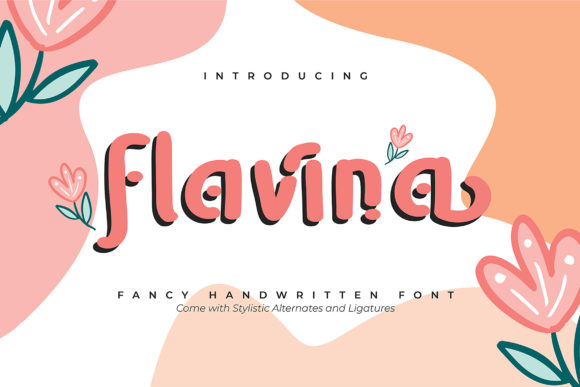
Introducing Flavina Font: The Ultimate Retro Display Font for Creative Projects
Are you tired of using the same old fonts for your creative projects? Look no further than Flavina Font, a fun and retro display font that’s perfect for a variety of applications. Whether you’re a crafter, digital designer, presenter, or greeting card maker, Flavina Font is the ideal choice for adding a touch of personality and whimsy to your work.
What is Flavina Font?
Flavina Font is a unique and eye-catching display font that’s inspired by the classic typography of the past. Its retro vibe is reminiscent of vintage signs, posters, and advertisements, but with a modern twist that makes it perfect for contemporary design projects. The font features bold lines, curvaceous shapes, and a playful flair that’s sure to grab attention.
Key Features of Flavina Font
- Retro-inspired design: Flavina Font has a distinctive retro look that’s perfect for creating vintage-style designs, but with a modern edge.
- Fun and playful: The font’s curvaceous shapes and bold lines give it a fun and playful feel that’s ideal for creative projects.
- Highly versatile: Flavina Font can be used for a wide range of applications, from crafting and digital design to presentations and greeting cards.
- Easily readable: Despite its bold and playful design, Flavina Font is surprisingly easy to read, making it perfect for headlines, titles, and short paragraphs.
Uses for Flavina Font
Flavina Font is an incredibly versatile font that can be used for a wide range of creative projects. Here are some ideas to get you started:
Creative Projects that Flavina Font is Perfect For
- Crafting: Use Flavina Font to add a personal touch to your scrapbooking, journaling, or other craft projects.
- Digital design: Add a pop of personality to your social media graphics, blog posts, or website designs with Flavina Font.
- Presentations: Make your presentations stand out with Flavina Font’s bold and playful design.
- Greeting cards: Use Flavina Font to create one-of-a-kind greeting cards for special occasions.
Benefits of Using Flavina Font
So why choose Flavina Font for your creative projects? Here are just a few benefits of using this amazing font:
Why Choose Flavina Font?
- Adds personality: Flavina Font adds a touch of personality and whimsy to your designs, making them stand out from the crowd.
- Highly versatile: Flavina Font can be used for a wide range of applications, making it a great addition to your font library.
- Easy to read: Despite its bold design, Flavina Font is surprisingly easy to read, making it perfect for headlines, titles, and short paragraphs.
- Unique and eye-catching: Flavina Font’s retro-inspired design makes it a unique and eye-catching choice for creative projects.
Tips for Using Flavina Font
Here are a few tips for getting the most out of Flavina Font:
Getting the Most Out of Flavina Font
- Use it sparingly: Flavina Font is a bold and playful font, so use it sparingly to avoid overwhelming your design.
- Pair it with other fonts: Experiment with pairing Flavina Font with other fonts to create a unique and eye-catching design.
- Experiment with colors: Flavina Font looks great in a variety of colors, so don’t be afraid to experiment and find the perfect hue for your design.
- Have fun: Most importantly, have fun with Flavina Font! Its playful design is perfect for adding a touch of personality to your creative projects.
Flavina Font is a fun and retro display font that’s perfect for a wide range of creative projects. Its unique and eye-catching design makes it a great choice for adding a touch of personality and whimsy to your work. Whether you’re a crafter, digital designer, presenter, or greeting card maker, Flavina Font is the ideal choice for making your designs stand out from the crowd.